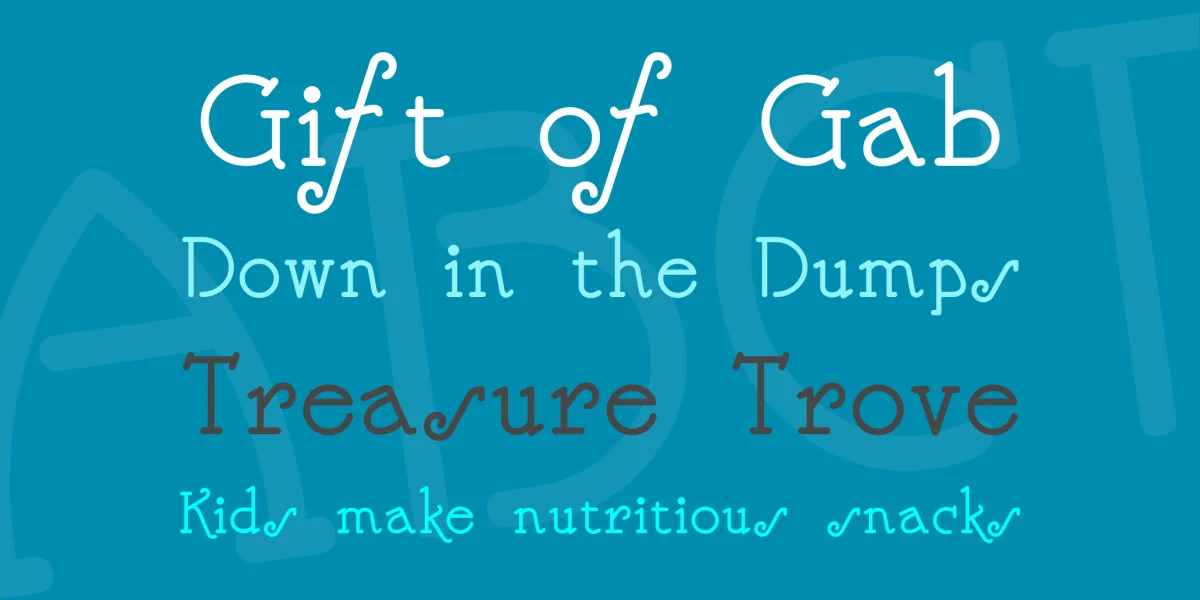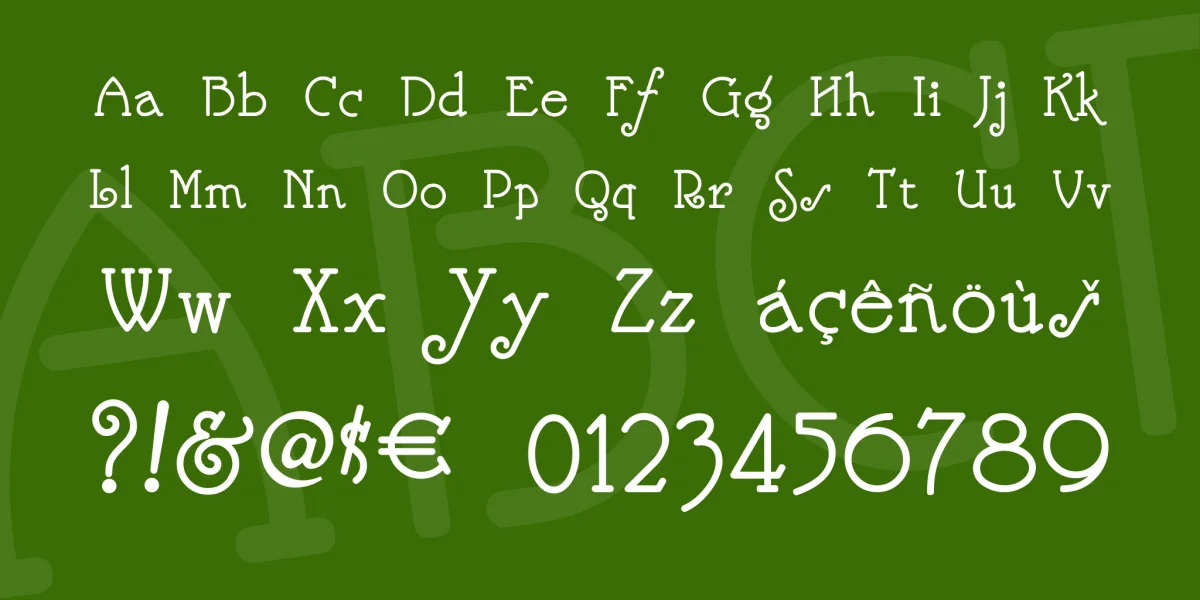
My very first font design, inspired by the title cards in silent movies. I found my original sketches in a notebook I've had banging around for (gulp) 30 years.